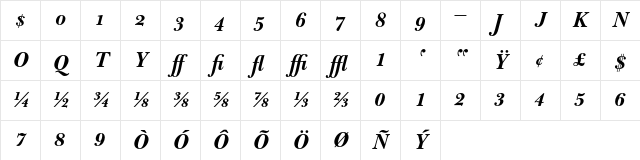
Bulmer MT Bold Italic Display Alt
Style: Bold Italic Display Alt
Complete Bulmer MT Bold Italic Display Alt glyph index. Displaying only characters natively supported by Bulmer MT Bold Italic Display Alt font.
Design Context for Bulmer MT
Bulmer MT is built around its visual character rather than neutral utility - its distinctive forms are designed to make an impression at display sizes. The slanted form adds forward momentum and visual energy. Its bold stroke weight gives it real presence on the page.
Font Pairing: Pair with a clean neutral sans-serif for body copy to let Bulmer MT's character lead without overwhelming the composition.
Pro Tip: Use Bulmer MT exclusively at display sizes - it was designed to be seen, not read at length. Let a neutral companion handle body copy.